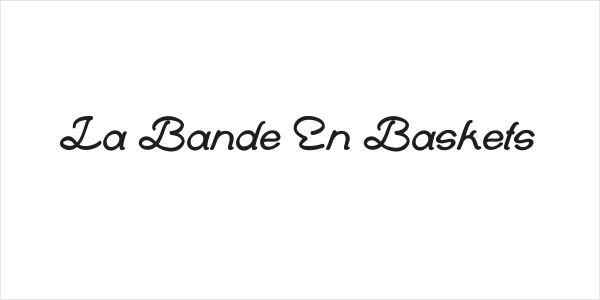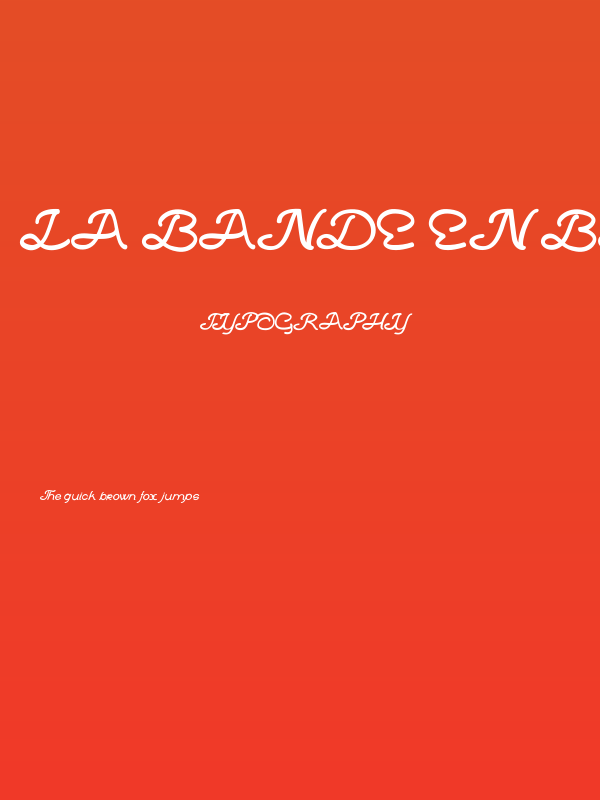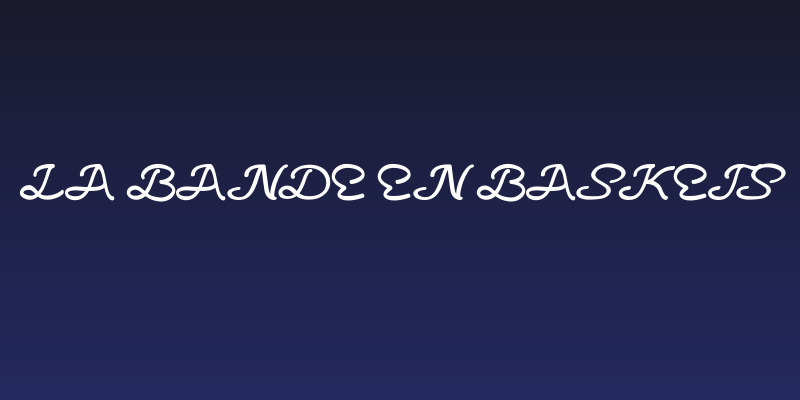
La Bande En Baskets Font
La Bande En Baskets Description
This font exhibits a playful and casual script style, characterized by its smooth, flowing curves and slightly slanted orientation. The uppercase letters are elegantly connected, while the lowercase letters maintain a consistent rhythm with gentle loops and rounded forms. The numerals are distinct and easy to read, complementing the overall aesthetic. Special characters are creatively integrated, adding to the font's charm. The design is reminiscent of handwritten notes, offering a personal touch that is both approachable and stylish.
| Overall Style | Casual, Handwritten |
| Proposed Projects | Ideal for greeting cards, invitations, personal branding, and creative projects that require a friendly and approachable touch. |